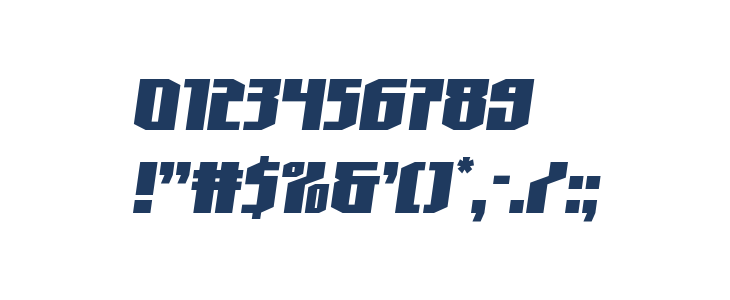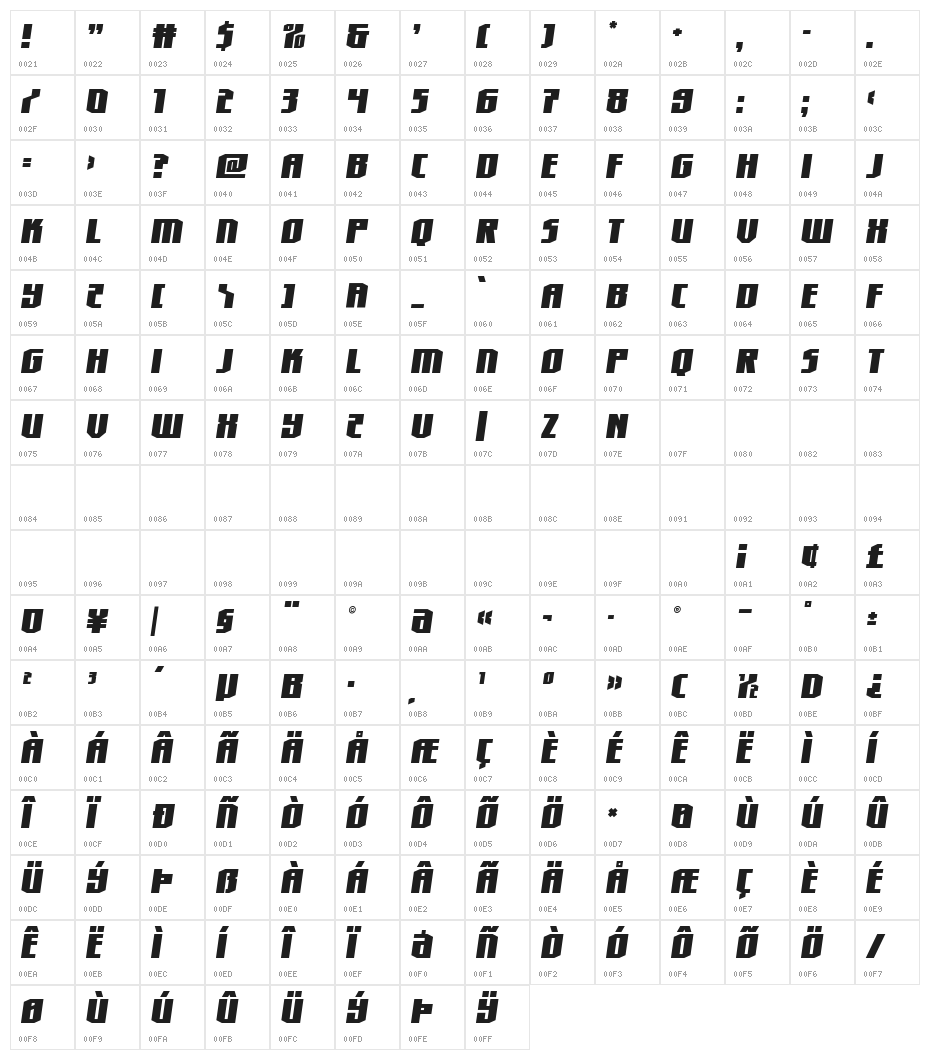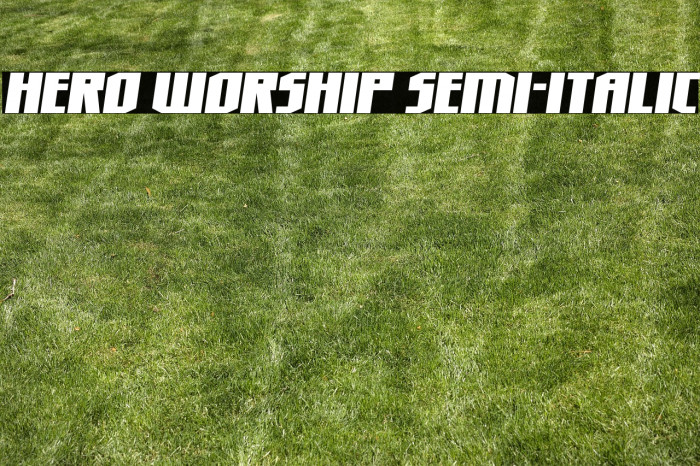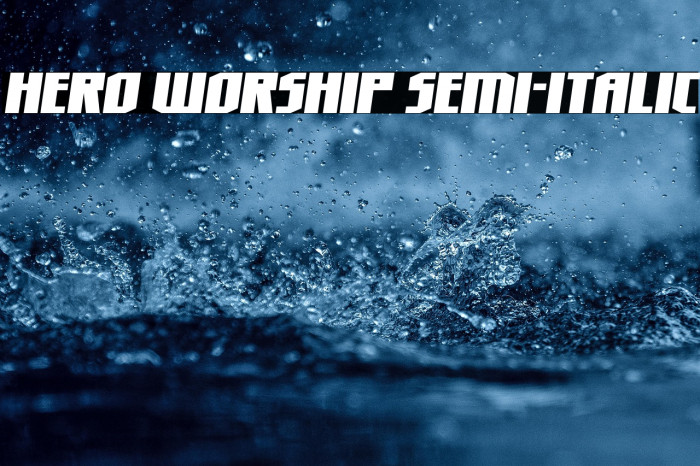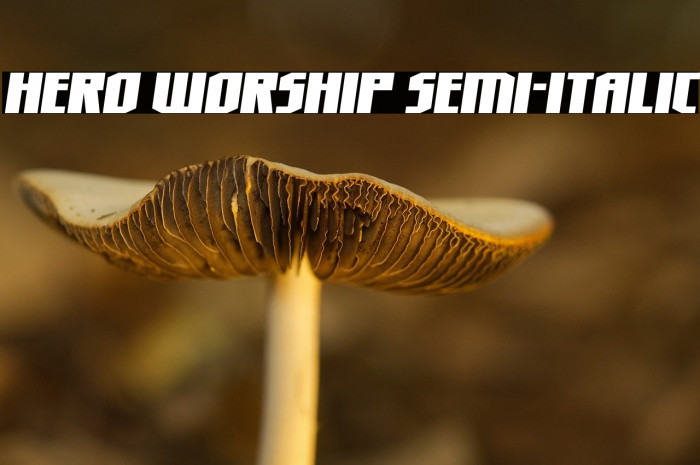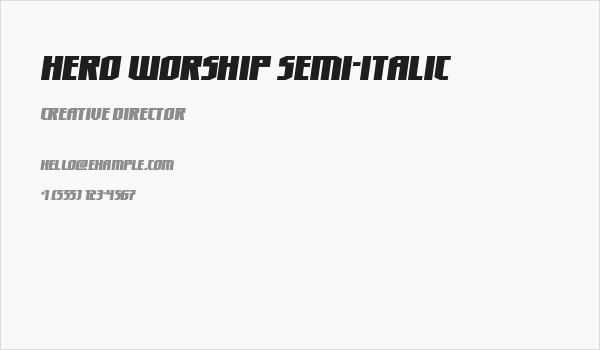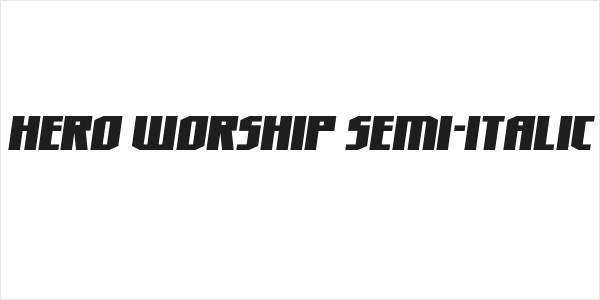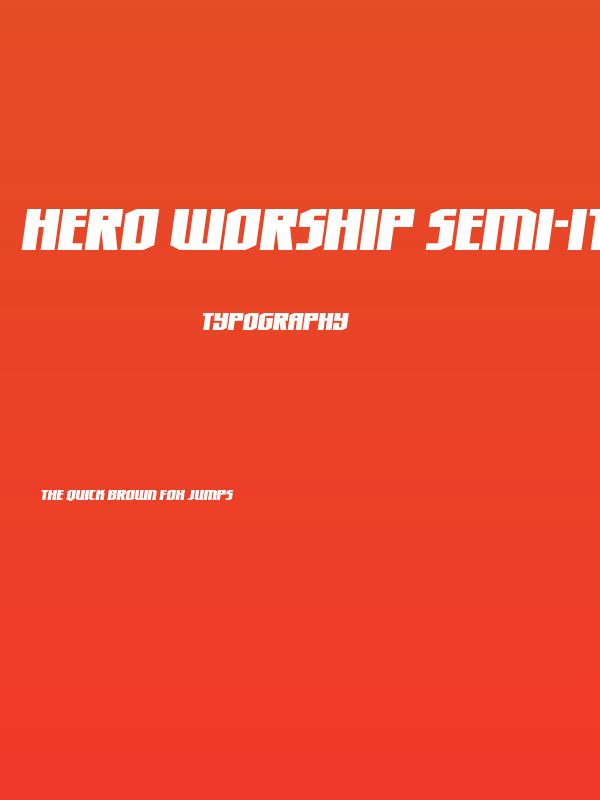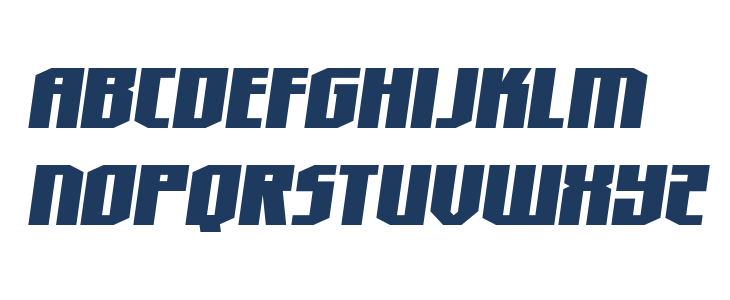
Hero Worship Semi-Italic Font
Hero Worship Semi-Italic Description
This font features a bold, angular design with a semi-italic slant, giving it a dynamic and energetic appearance. The characters are constructed with sharp edges and a geometric style, making them stand out with a strong presence. The uppercase and lowercase letters maintain a consistent style, while the numbers and special characters complement the overall aesthetic. The font's unique design is suitable for projects that require a bold statement, offering a modern and edgy look.
| Overall Style | Modern, Edgy |
| Proposed Projects | Ideal for sports branding, posters, video game titles, and dynamic logos. |